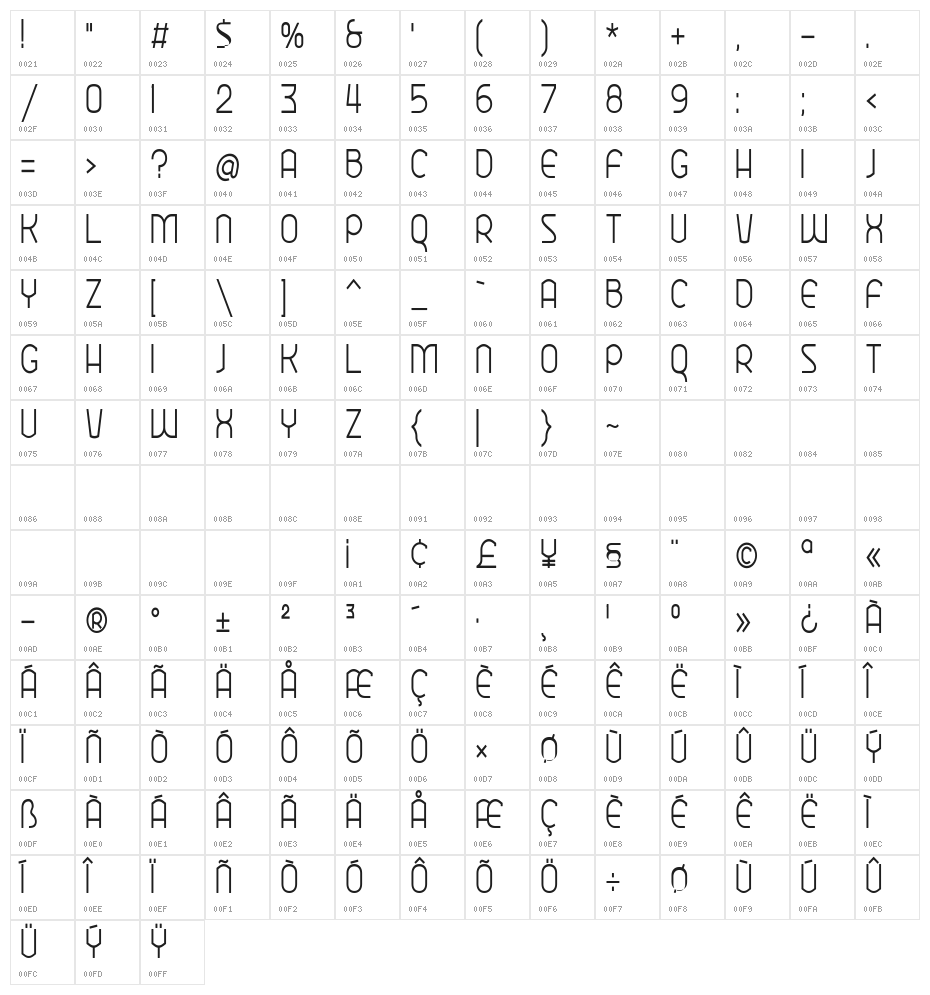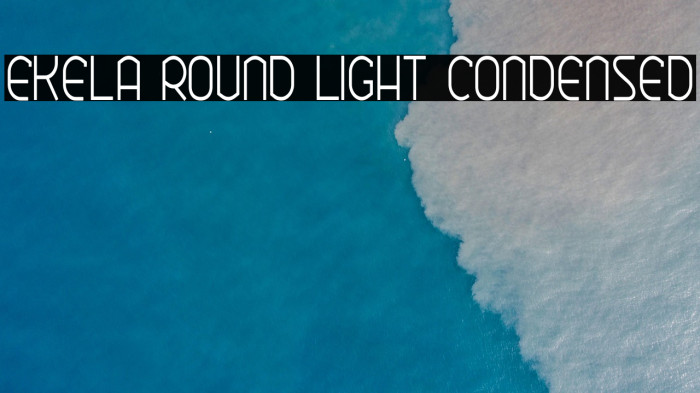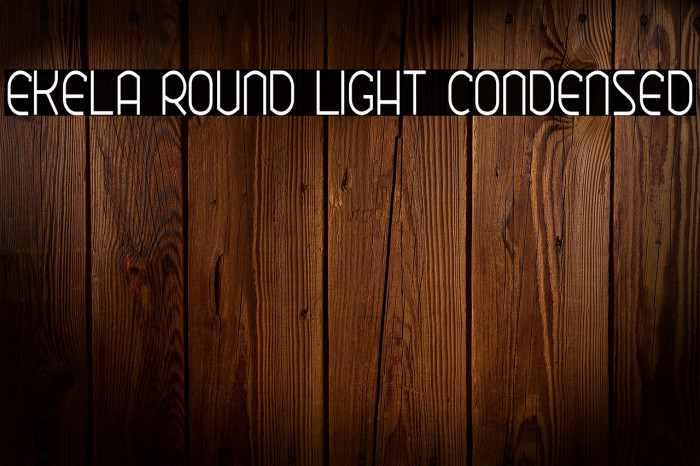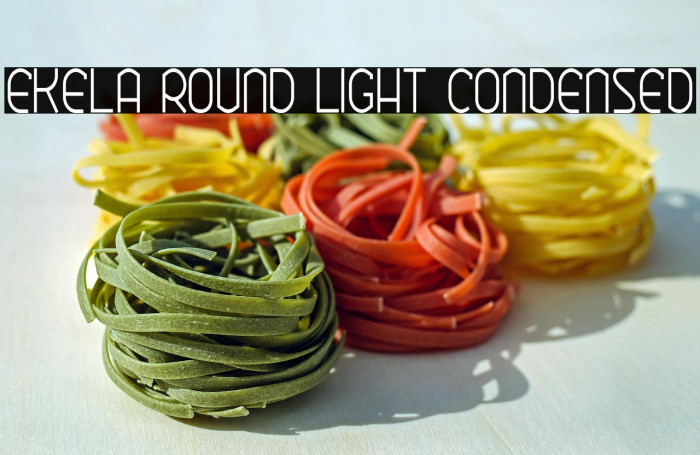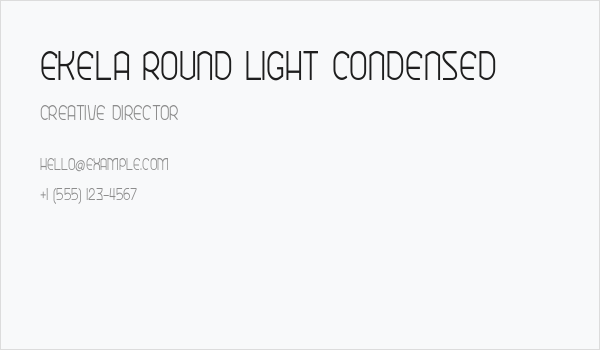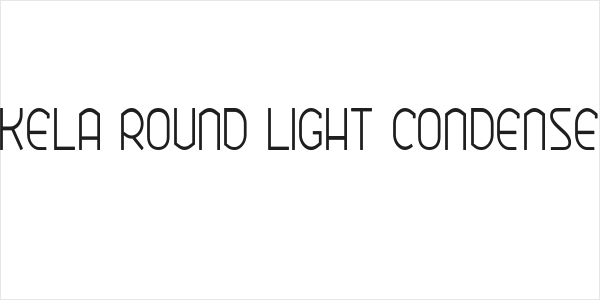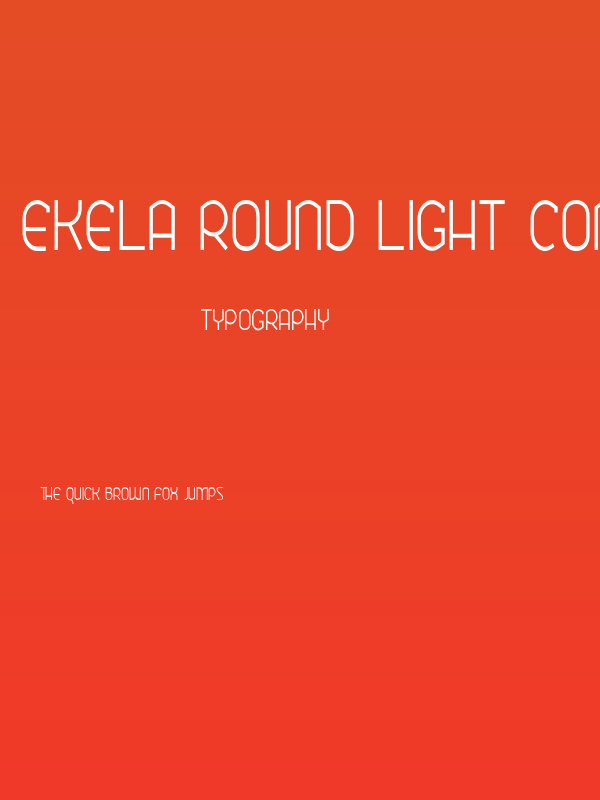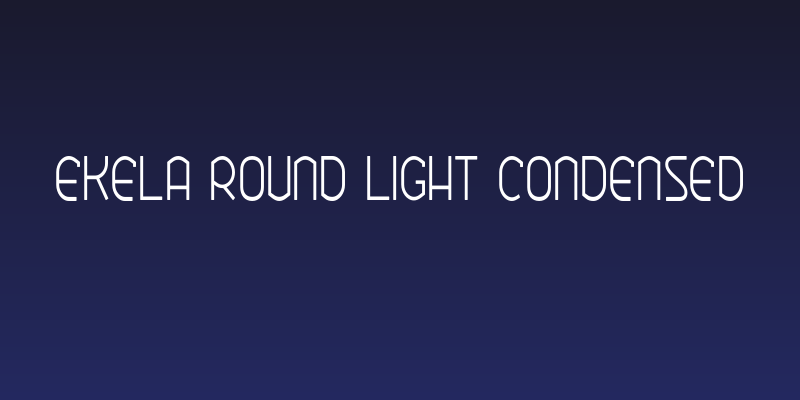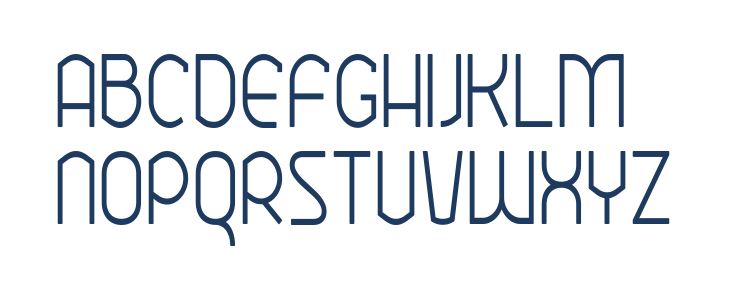
Ekela Round Light Condensed Font
Ekela Round Light Condensed Description
This font features a sleek, modern design with rounded edges and a light weight, giving it a clean and contemporary appearance. The condensed width allows for efficient use of space, making it ideal for settings where space is at a premium. The characters are evenly spaced, contributing to a harmonious and balanced look. With its minimalistic style, it maintains readability while offering a unique aesthetic that stands out. The font includes a full set of uppercase and lowercase letters, numbers, and a variety of special characters, making it versatile for various applications.
| Proposed Projects | Ideal for modern branding, tech-related designs, minimalist posters, and sleek website headers. |